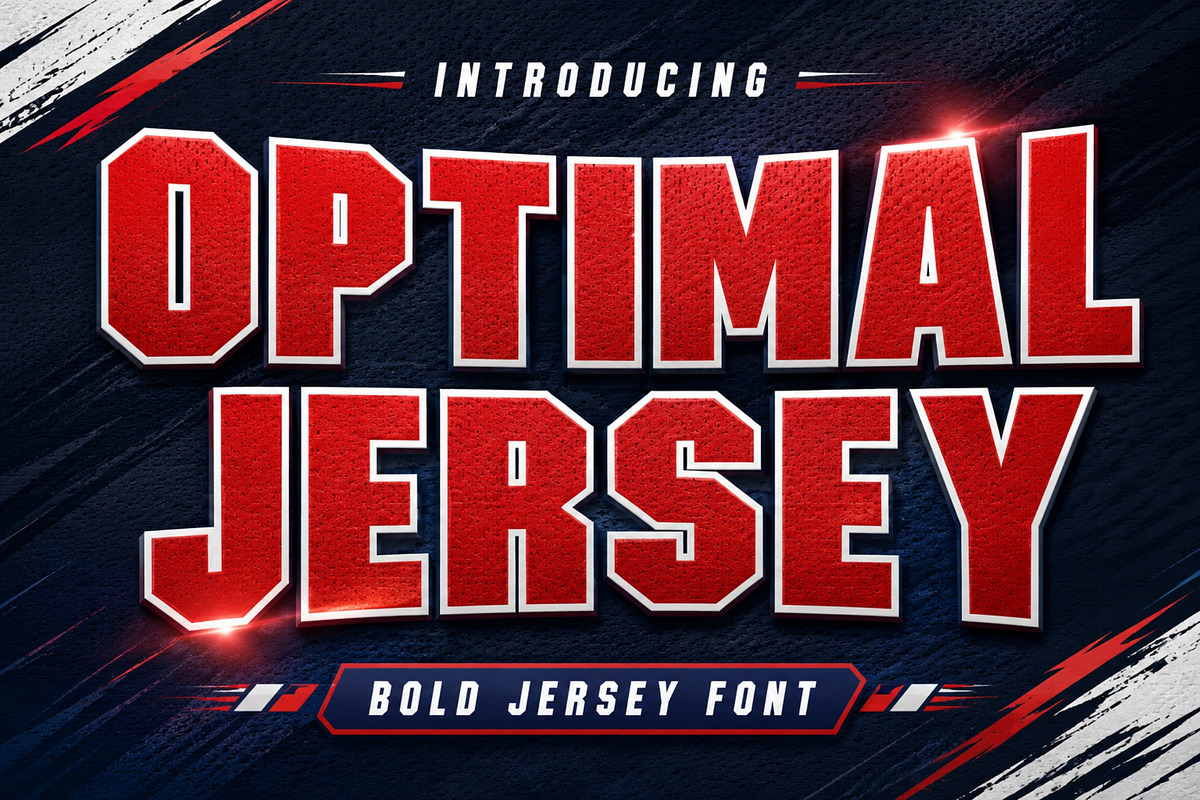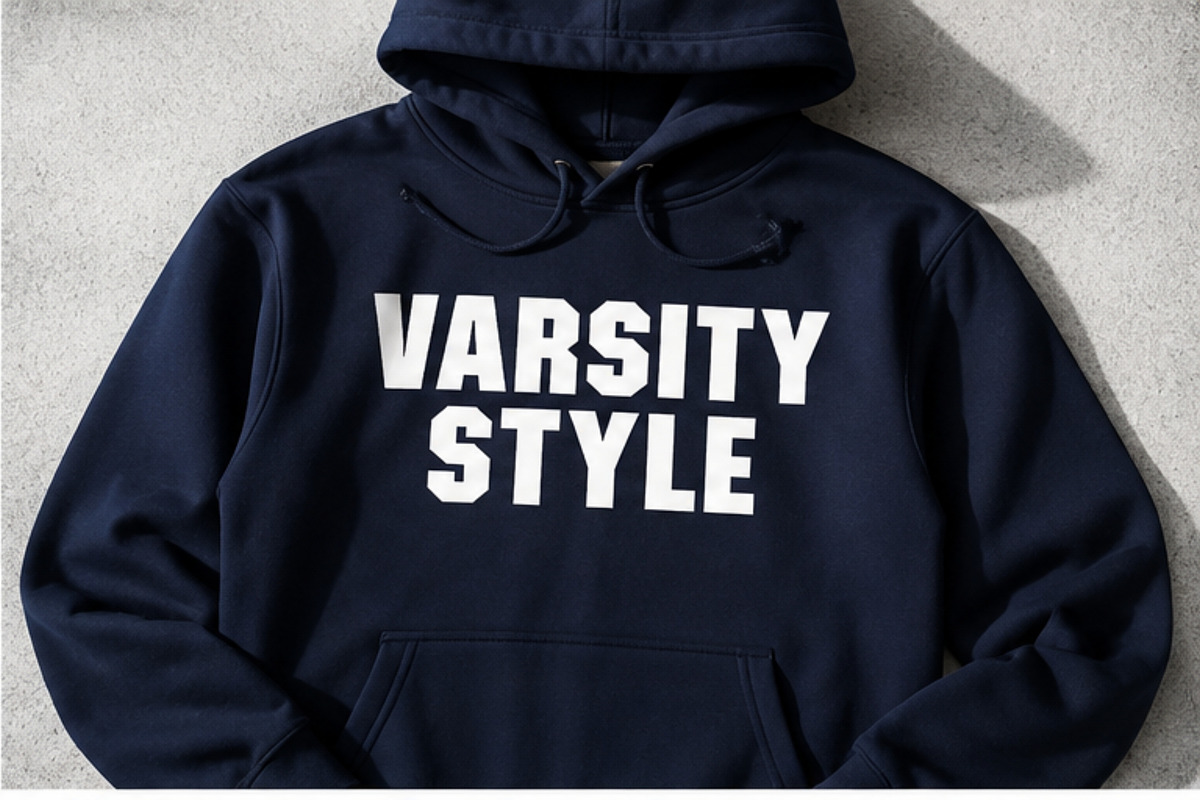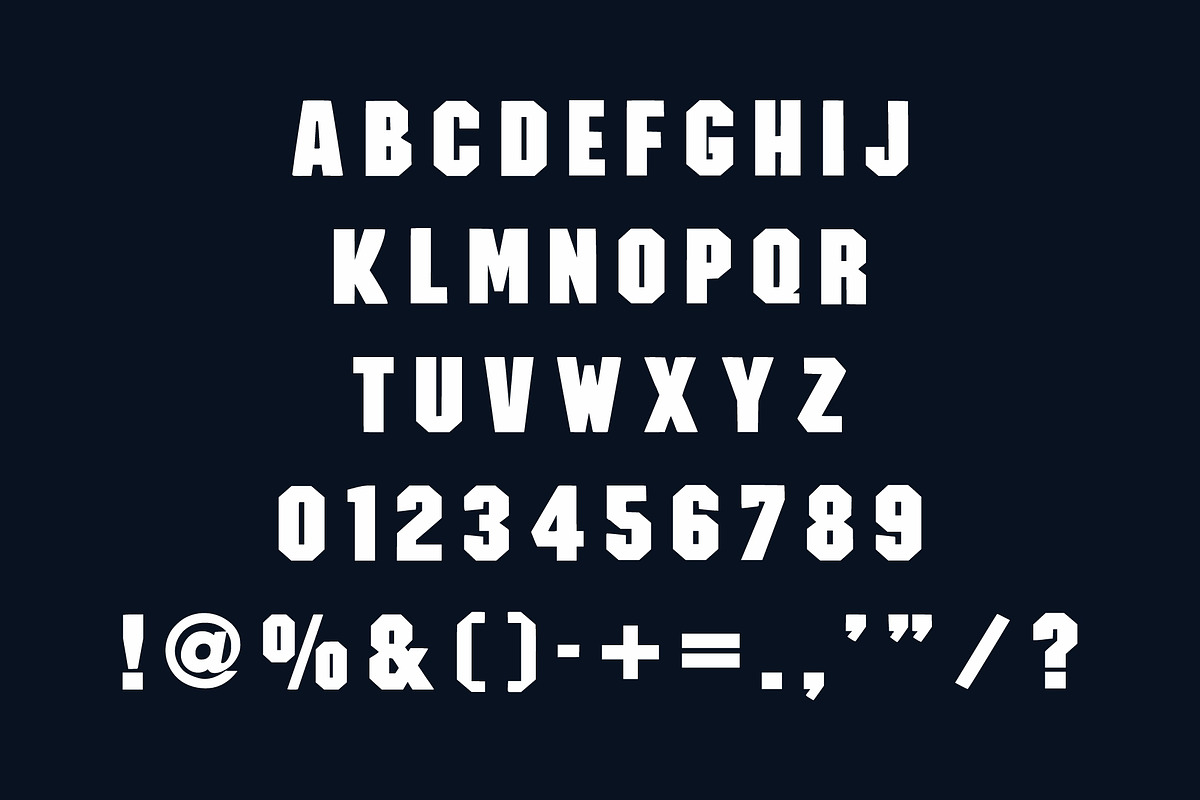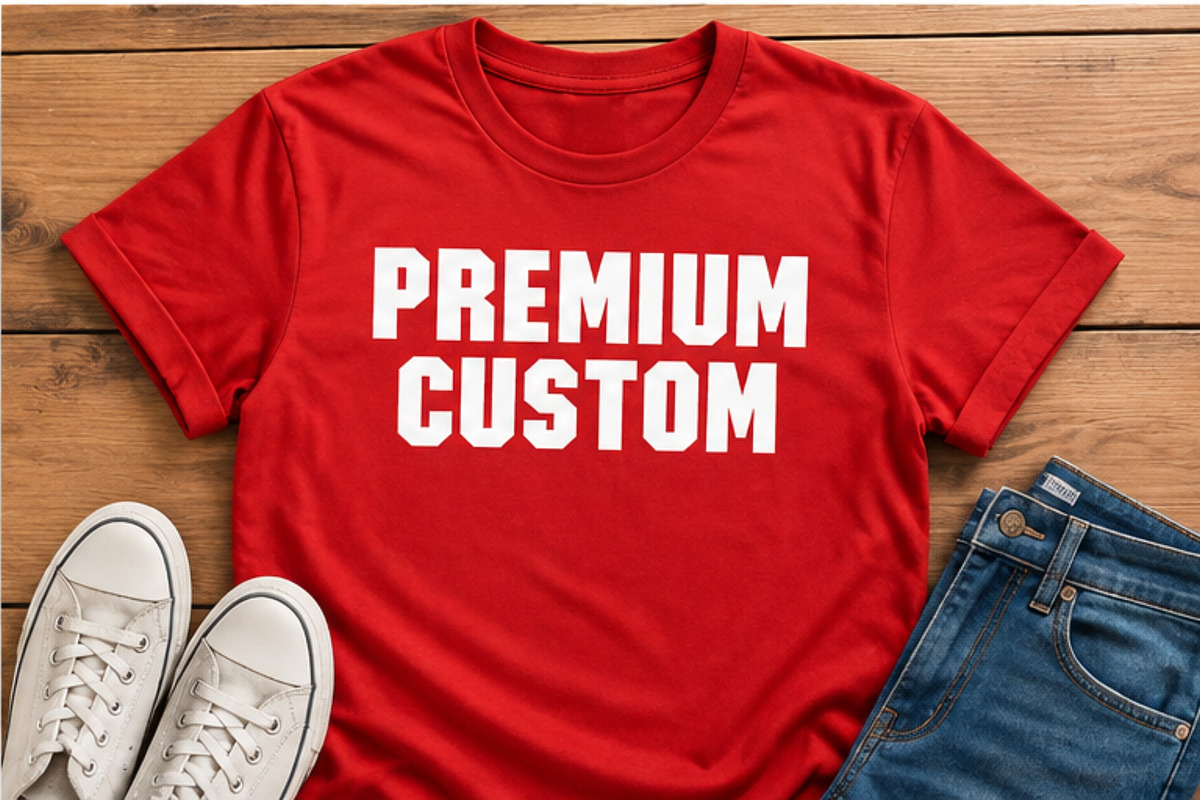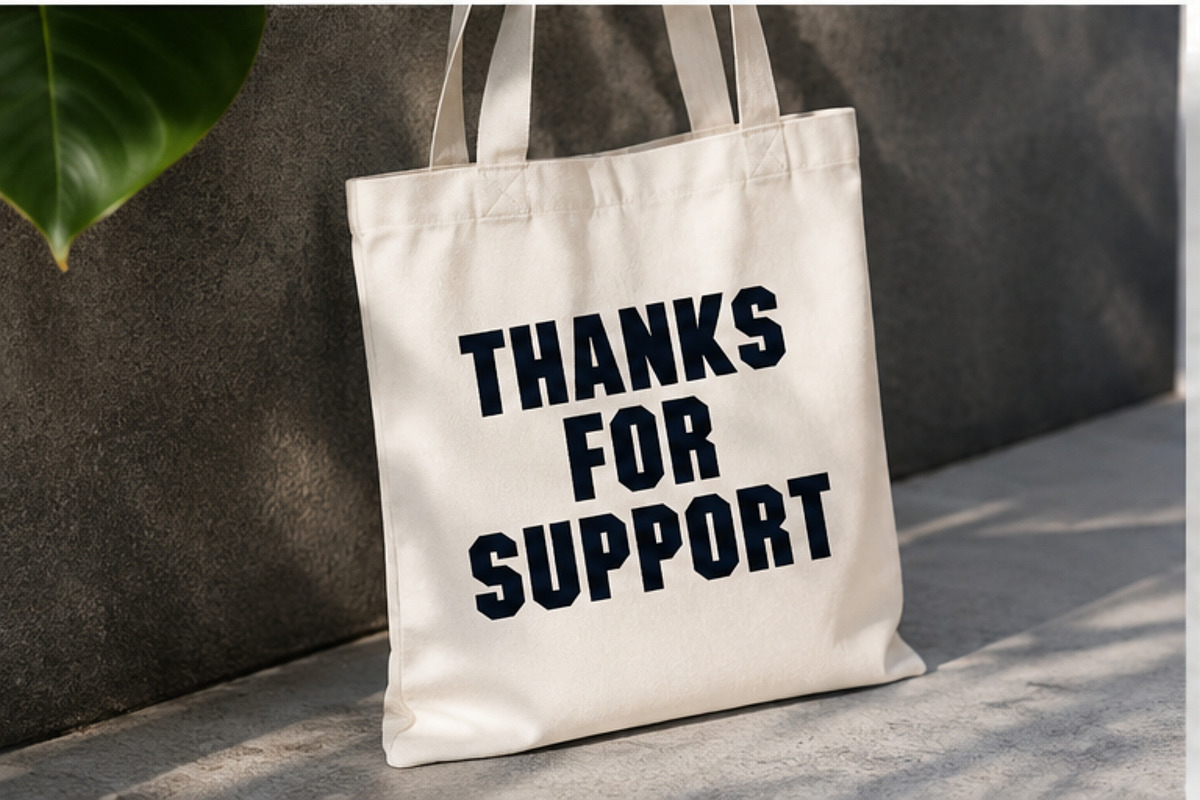
Optimal Jersey
Optimal Jersey is a bold and sporty display font inspired by classic athletic jerseys and modern sports typography. Its strong, dynamic letterforms are designed to create an energetic and competitive look, making it perfect for team jerseys, sportswear, logos, numbers, posters, merchandise, and branding.
Perfect for football, basketball, baseball, racing, esports, school teams, sports events, and athletic apparel.
Features: – Bold & sporty letterforms – Athletic jersey-inspired style – Strong and dynamic appearance – Great for sports branding – Perfect for jersey names & numbers – Suitable for print and digital projects – Works beautifully for logos, merchandise, posters, and apparel
Recommended Uses: – Sports Jersey – Football & Soccer Designs – Basketball Designs – Baseball Apparel – Racing & Motorsport – Esports Branding – Team Logos – Sports Posters – T-Shirt & Hoodie Designs – Caps & Merchandise – School & College Sports – Athletic Branding